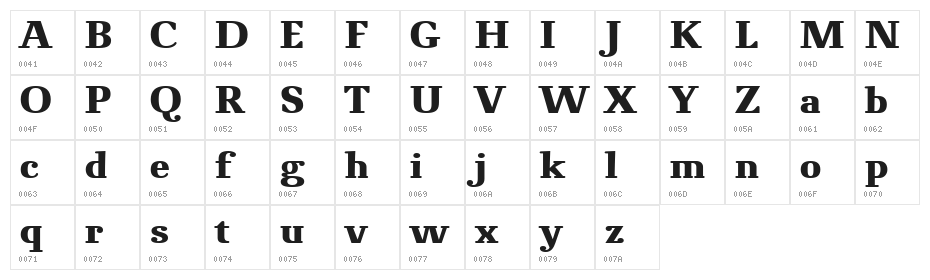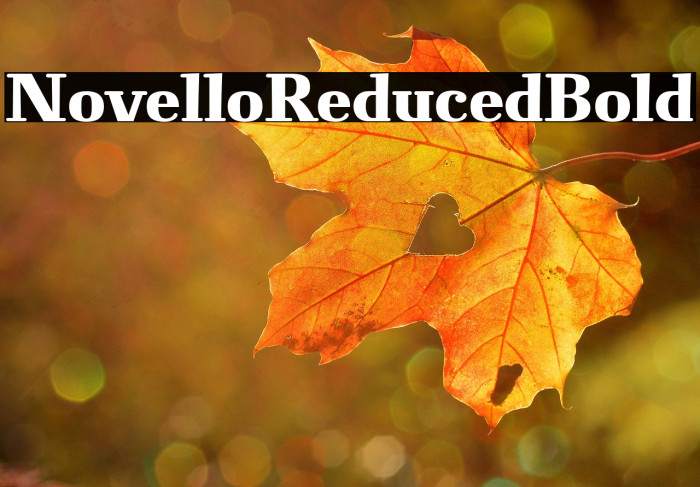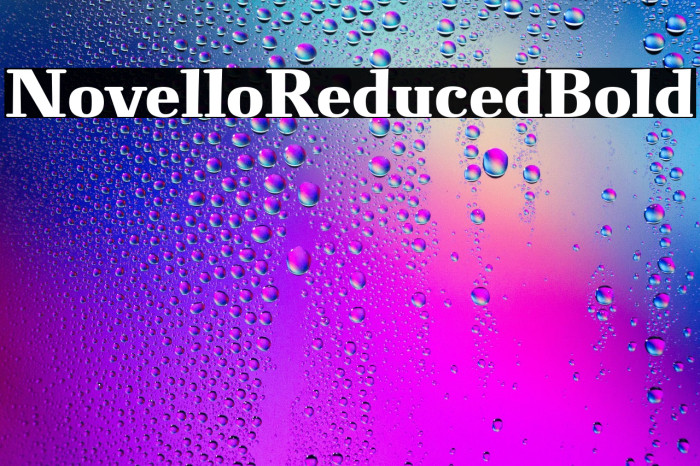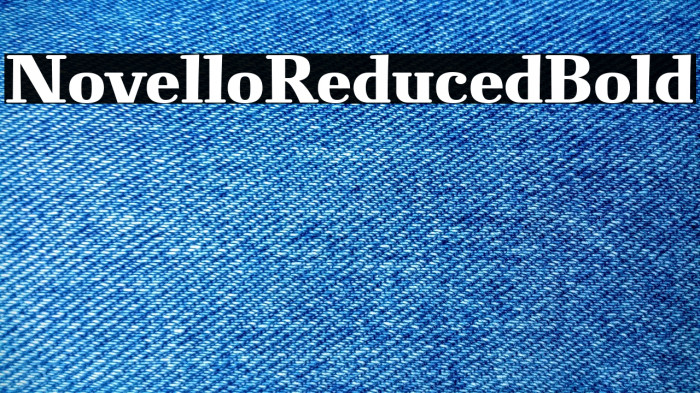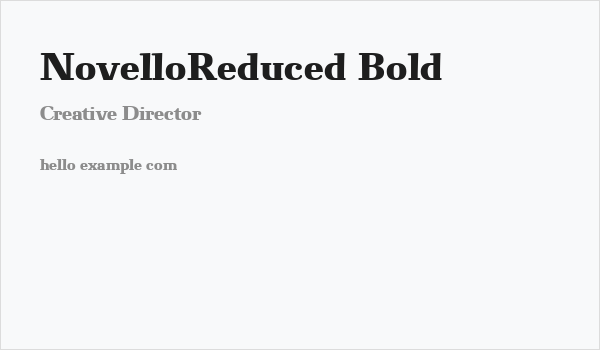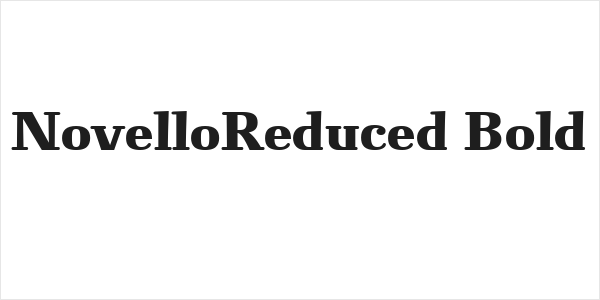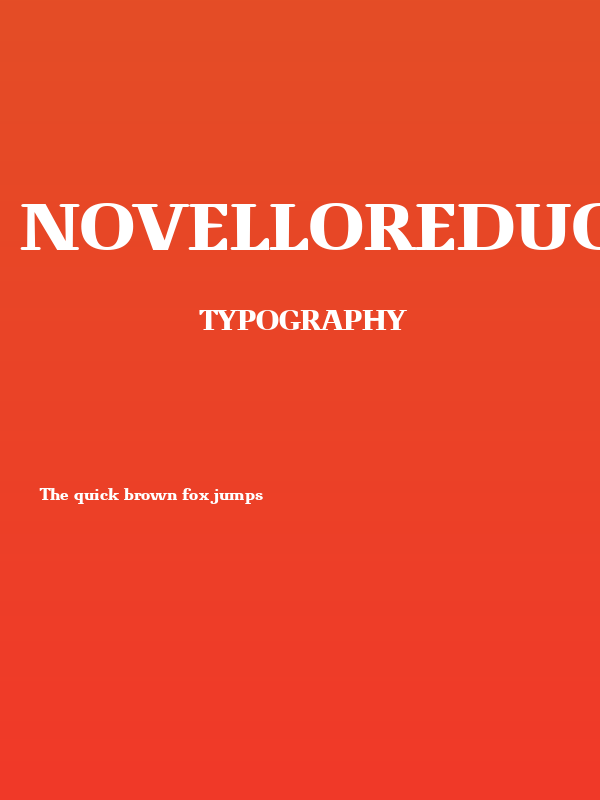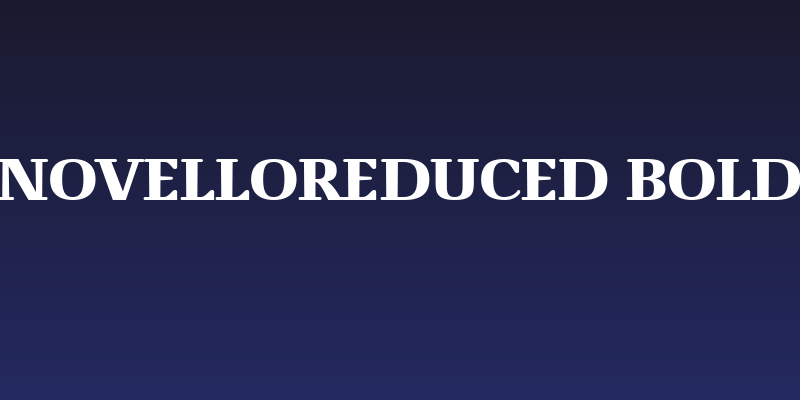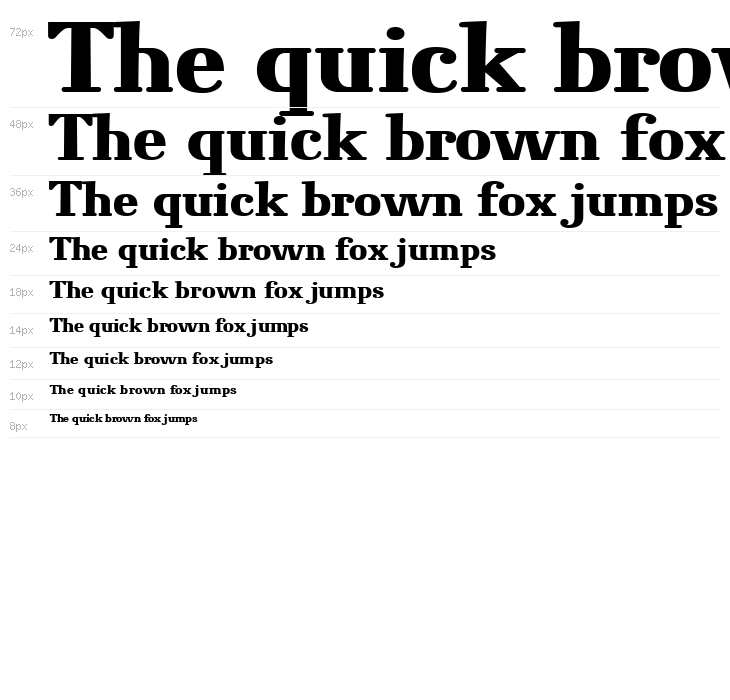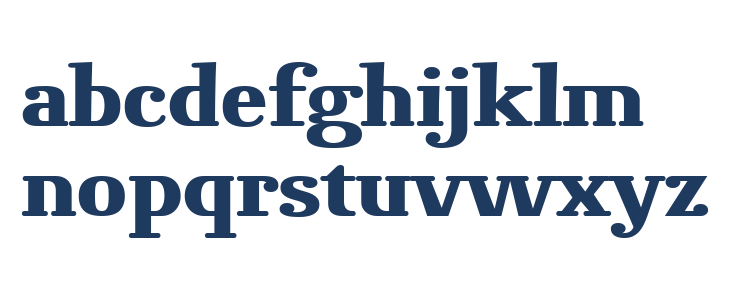
NovelloReduced-Bold Font
NovelloReduced-Bold Description
This font exhibits a bold and commanding presence with its strong serif features. The characters are well-defined with a classic serif style, offering a sense of tradition and authority. The uppercase letters are robust and evenly spaced, while the lowercase letters maintain a consistent weight, providing a harmonious balance. The numerals are clear and legible, making them suitable for various applications. The special characters are distinct and integrate seamlessly with the overall design, enhancing its versatility. This font is ideal for projects that require a touch of elegance and sophistication.
Overall StyleClassic
Use CaseHeadlines, Logos, Editorials
Proposed ProjectsIdeal for book covers, editorial headlines, branding, and formal invitations.